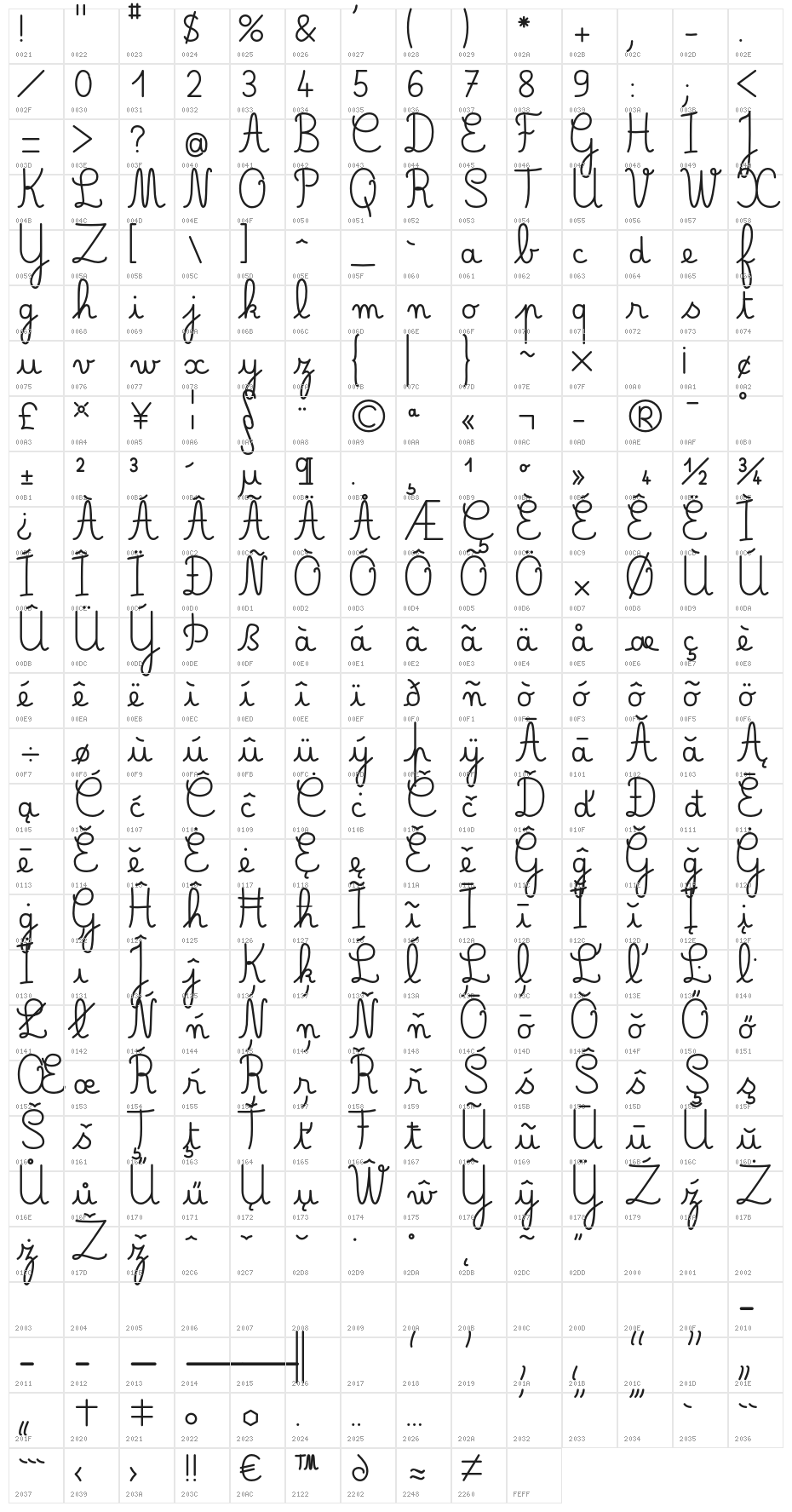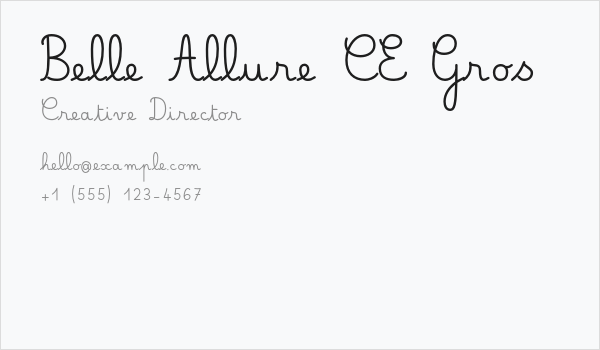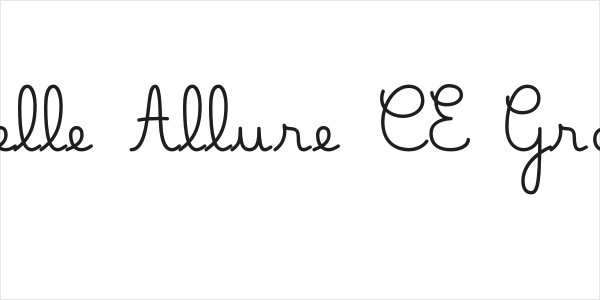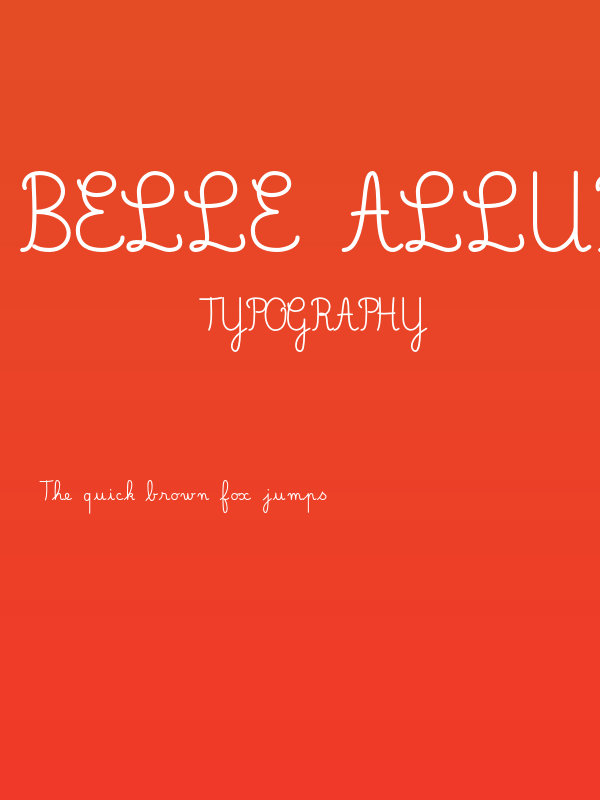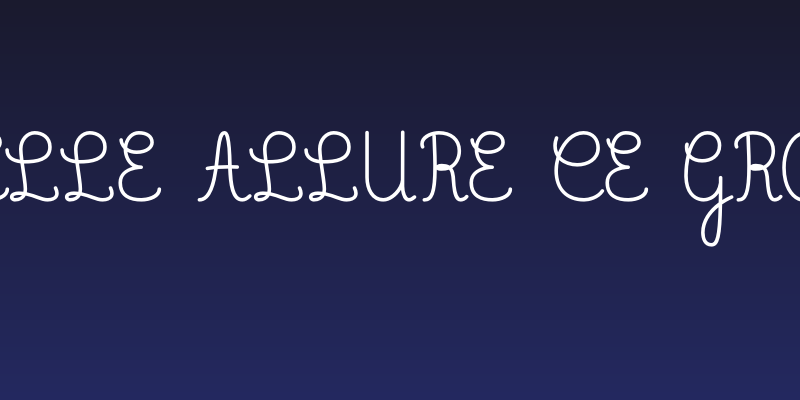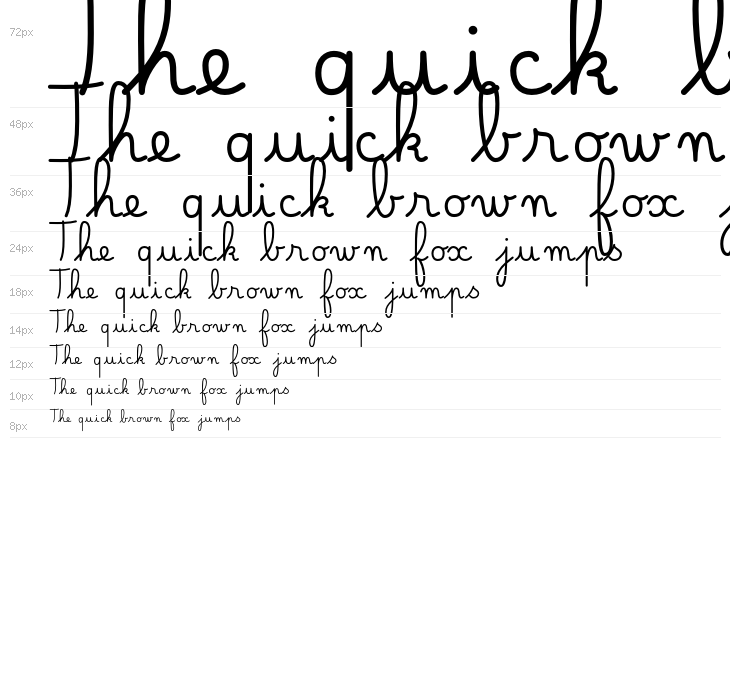
Belle Allure CE Gros Font
Belle Allure CE Gros Description
This font features a charming and playful script style with a handwritten appearance. The letters are connected in a fluid manner, giving it a casual and friendly look. The uppercase letters are tall and slightly narrow, while the lowercase letters maintain a consistent flow with loops and curves. The numerals are rounded and align well with the overall style, providing a cohesive look. Special characters are elegantly integrated, maintaining the font's whimsical nature. This font is perfect for projects that require a personal touch, such as invitations, greeting cards, or playful branding.
| Use Case | Invitations, Greeting cards, Branding |
| Proposed Projects | Ideal for invitations, greeting cards, playful branding, and personal projects. |